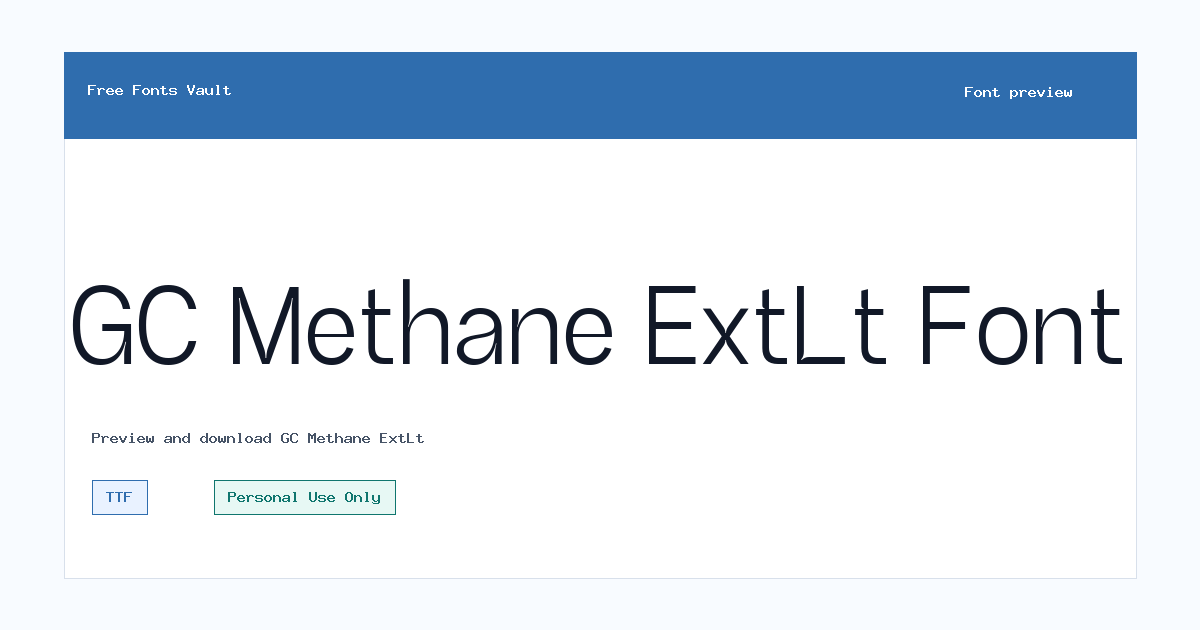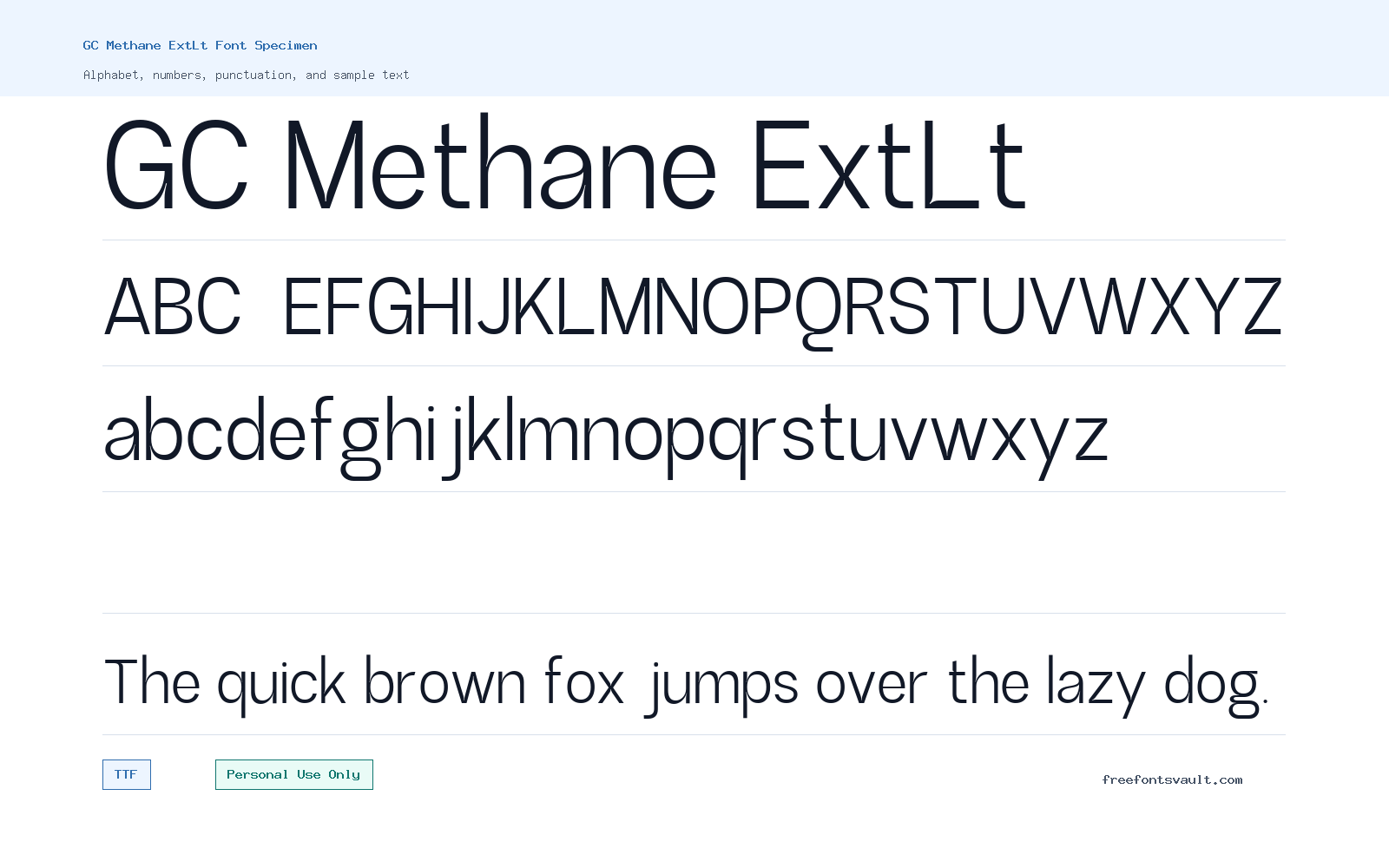
GC Methane ExtLt
- Designer Ken Priska Dewirani of Glyphonic
GC Methane ExtLt is a light-weight style from the GC Methane Sans Serif Font Family. It is a personal-use font, suited to testing clean display typography in previews, mockups, and non-commercial design experiments.
GC Methane ExtLt is credited to Ken Priska Dewirani of Glyphonic. The font file is provided as a TTF, with the style marked as normal and the weight listed as 300. The name and file label point to an ExtraLight demo style, so it is best approached as a thin, restrained sans serif option rather than a heavy headline face. Use the preview tool to check how its letter spacing, stroke weight, and smaller details behave before downloading, especially if you plan to use it in short titles, brand studies, posters, or layout drafts.
Because this is a light-weight font, it will usually work best where the text has enough room to breathe. Try it in large headings, minimal logo concepts, editorial cover tests, portfolio graphics, social post mockups, packaging studies, and web hero sections. Thin fonts can look elegant in spacious layouts, but they can also lose clarity at small sizes, on low-resolution screens, or over busy images. If you are designing a poster or web mockup, test both large and medium sizes. For logo work, check every important letter combination carefully, because thin strokes and tight spacing can affect how readable a wordmark feels.
Pairing GC Methane ExtLt with a stronger companion typeface can make a layout easier to read. A heavier sans serif can support navigation, buttons, captions, and body copy, while GC Methane ExtLt can stay focused on display text. If you want a more editorial look, pair it with a plain serif for longer reading sections, but keep the contrast simple. Avoid using several very thin fonts together, as the page can start to feel weak or hard to scan. For web mockups, use it sparingly in hero titles, section headers, or large pull quotes, then rely on a more readable body font for paragraphs.
- ExtraLight demo style with normal styling and 300 weight metadata
- Best suited to larger display testing rather than dense body text
- Useful for clean title, poster, logo-study, and web mockup experiments
- Personal design experiments
- Large display headings
- Logo and wordmark mockups
- Poster title layouts
- Web hero section concepts
- Editorial cover tests
- Minimal social media graphics
- Portfolio typography studies
Test GC Methane ExtLt at large sizes first. Thin fonts can look clean in spacious layouts, but they may become difficult to read in small text, low contrast, or image-heavy designs. Pair it with a sturdier typeface for body copy, buttons, captions, and other practical interface text.
Who designed GC Methane ExtLt?
The font is credited to Ken Priska Dewirani of Glyphonic.
Is GC Methane ExtLt good for logos?
Can I use GC Methane ExtLt for body text?
It is better suited to display use. Because it is an ExtraLight-style font, long paragraphs or small text may be harder to read. Use a more robust companion font for body copy.
What should I pair it with?
Pair it with a heavier sans serif for clean modern layouts, or a simple serif if you want more contrast. Keep the pairing practical: GC Methane ExtLt can handle large titles while the companion font supports readable text.